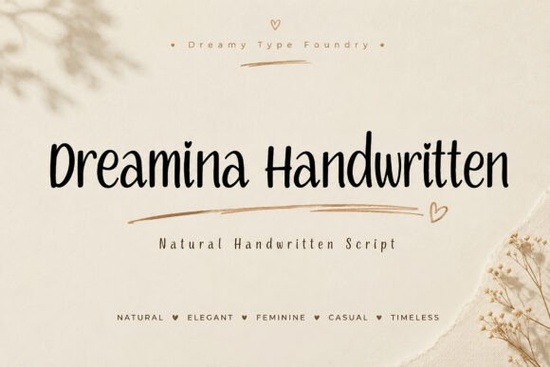
Looking for a font that feels personal and authentic without the effort of handwriting every letter? Dreamina Handwritten Font delivers just that natural-looking strokes, gentle curves, and a soft, approachable vibe that works across many creative projects. Whether you're designing wedding invitations, crafting social media graphics, or labeling handmade goods, this script font adds warmth and charm effortlessly.
What makes Dreamina Handwritten stand out?
Unlike stiff or overly stylized fonts, Dreamina was crafted to mimic real handwriting. The letterforms flow naturally, with subtle variations in stroke width and spacing that give it an organic feel. It’s not too bold, not too delicate just right for designs that want to feel human and sincere.
You’ll notice how each character has its own personality. The lowercase letters have playful lifts, while the uppercase forms maintain elegance. This balance makes it suitable for both casual and refined applications, from lifestyle branding to formal stationery.
Where can you use Dreamina Handwritten?
This font shines in a variety of design contexts:
- Wedding invitations – Add a romantic, heartfelt touch to save-the-dates and RSVP cards.
- Branding & logos – Perfect for small businesses, boutiques, or crafters wanting a friendly, personal brand voice.
- Social media posts – Ideal for quote graphics, story highlights, and reels where authenticity matters.
- Greeting cards & product labels – Gives handmade items a thoughtful, handcrafted look.
- Print-on-demand designs – Works beautifully on mugs, T-shirts, and notebooks when paired with clean backgrounds.
It’s especially effective when used in combination with other fonts pair it with a simple sans-serif for contrast, or layer it subtly behind text to add depth.
How does it compare to similar fonts?
If you’ve tried other handwritten styles like Choco Mocha or Nougat Dreams, you’ll appreciate how Dreamina strikes a middle ground: it’s more fluid than some, yet still highly legible. While Choco Mocha Font leans into a bolder, café-inspired aesthetic, Dreamina keeps things softer and more versatile. Similarly, Nougat Dreams Font has a dreamy, whimsical tone, but Dreamina offers a steadier, more consistent rhythm across long texts.
For those who love elegant cursive with a modern edge, Charms Memorie Font brings a vintage flair, while DaddyDays Font is more casual and fun. Kingdom Knights Font leans into fantasy themes Dreamina stays grounded in everyday authenticity.
Why designers choose Dreamina Handwritten
It also supports multiple languages, making it useful if you’re creating content beyond English. Whether you're writing a short quote or building a full brand identity, Dreamina adapts without losing its character.
One thing to keep in mind: while it’s great for decorative purposes, it’s best used sparingly in long blocks of text. For body copy, pair it with a clean, readable font instead.
When you want a font that feels like a warm hello on the page, Dreamina Handwritten delivers without any fuss.